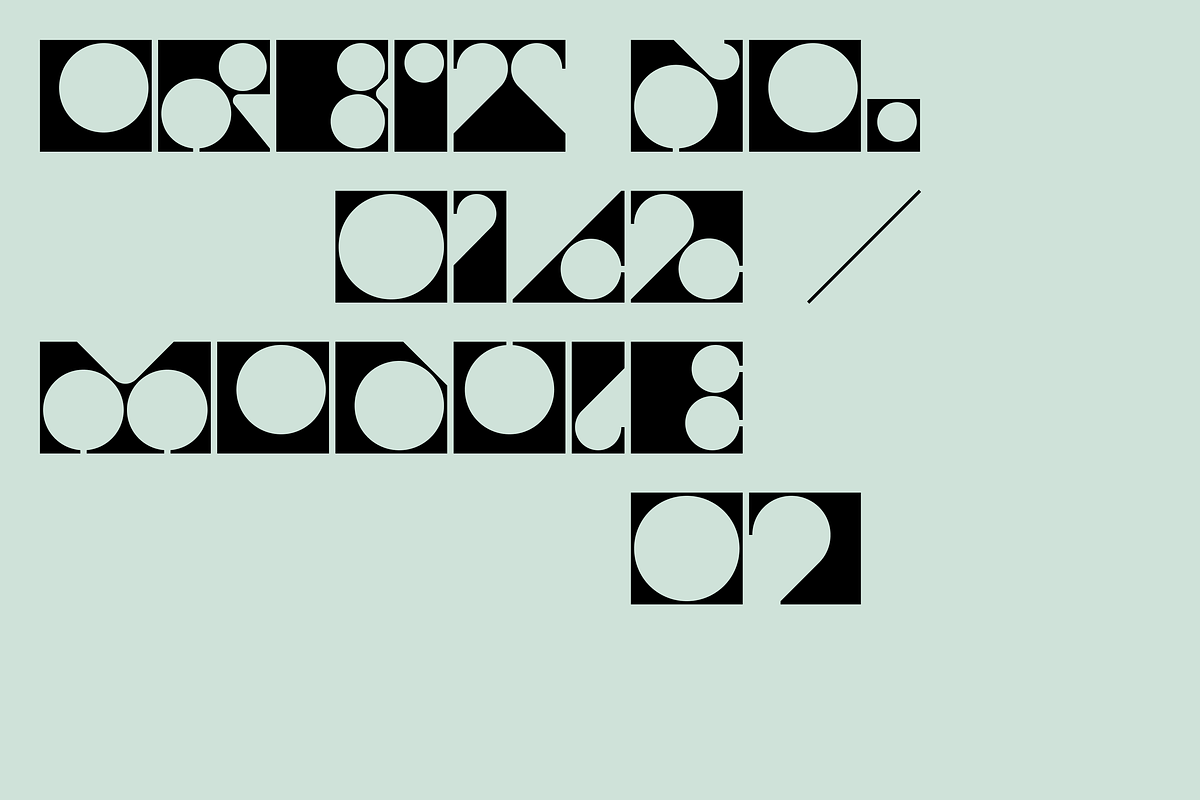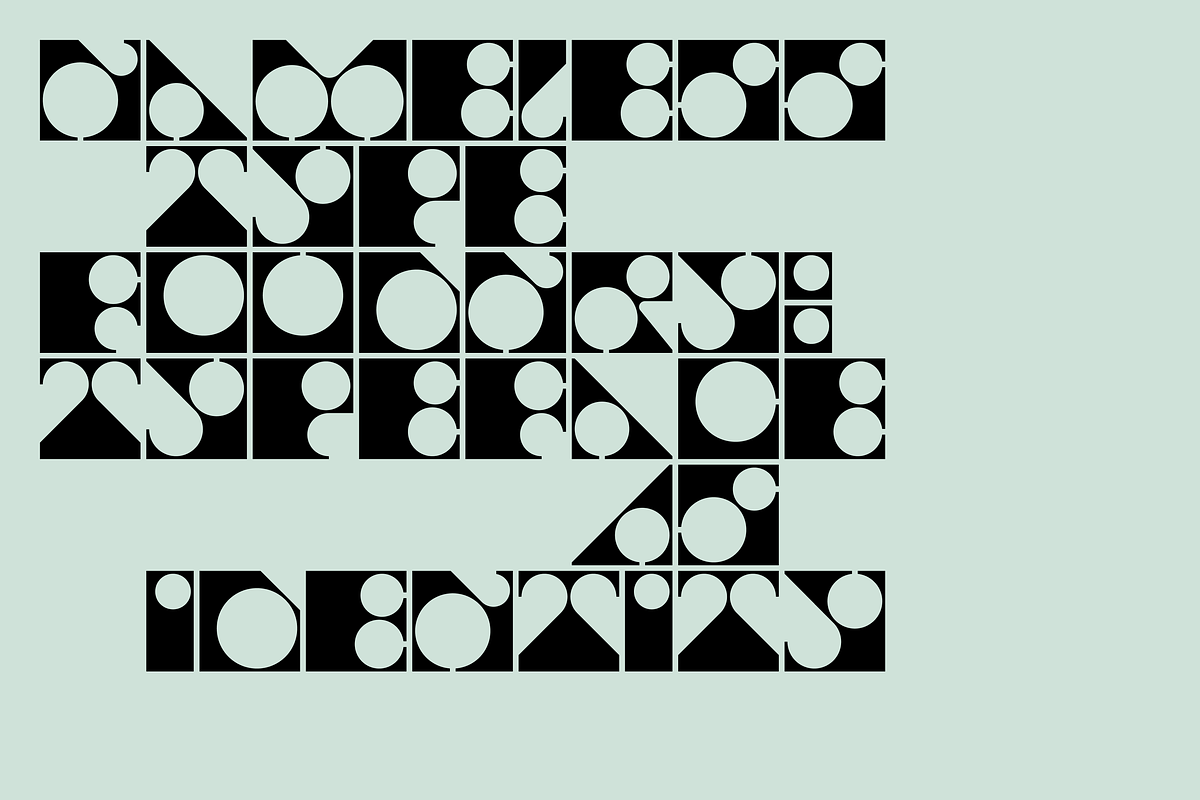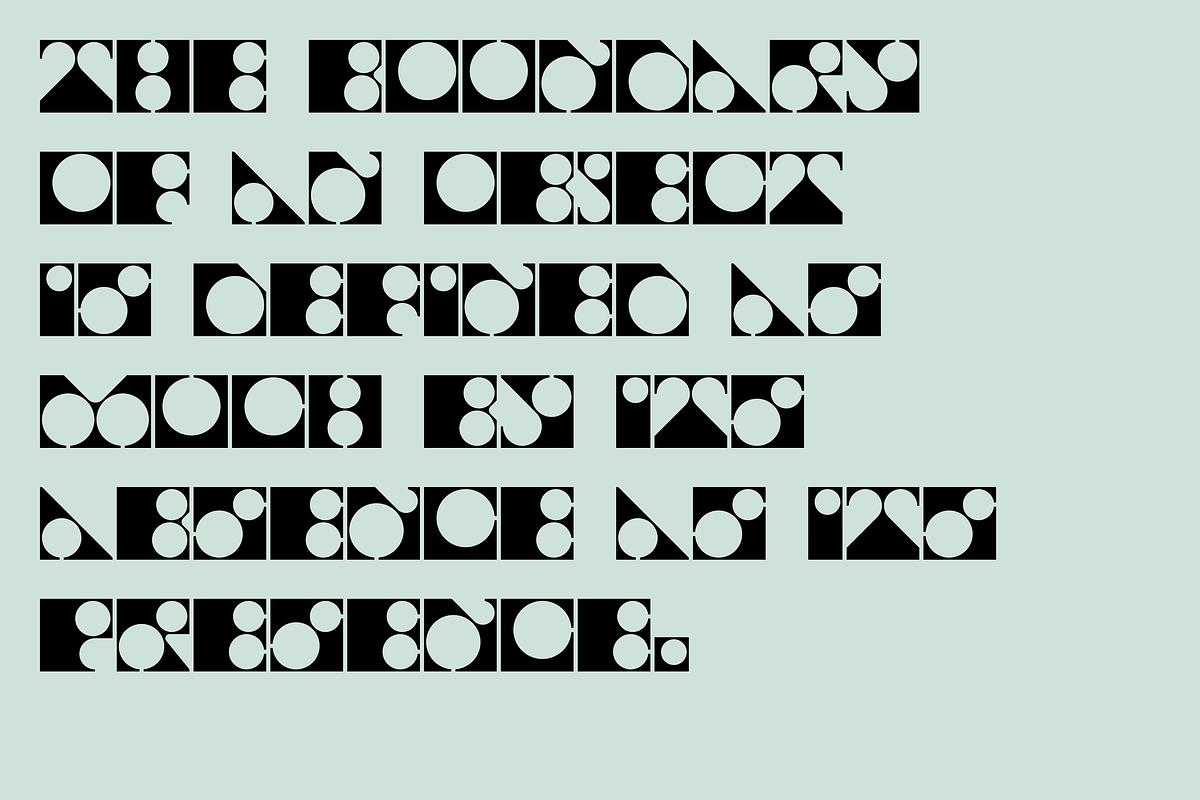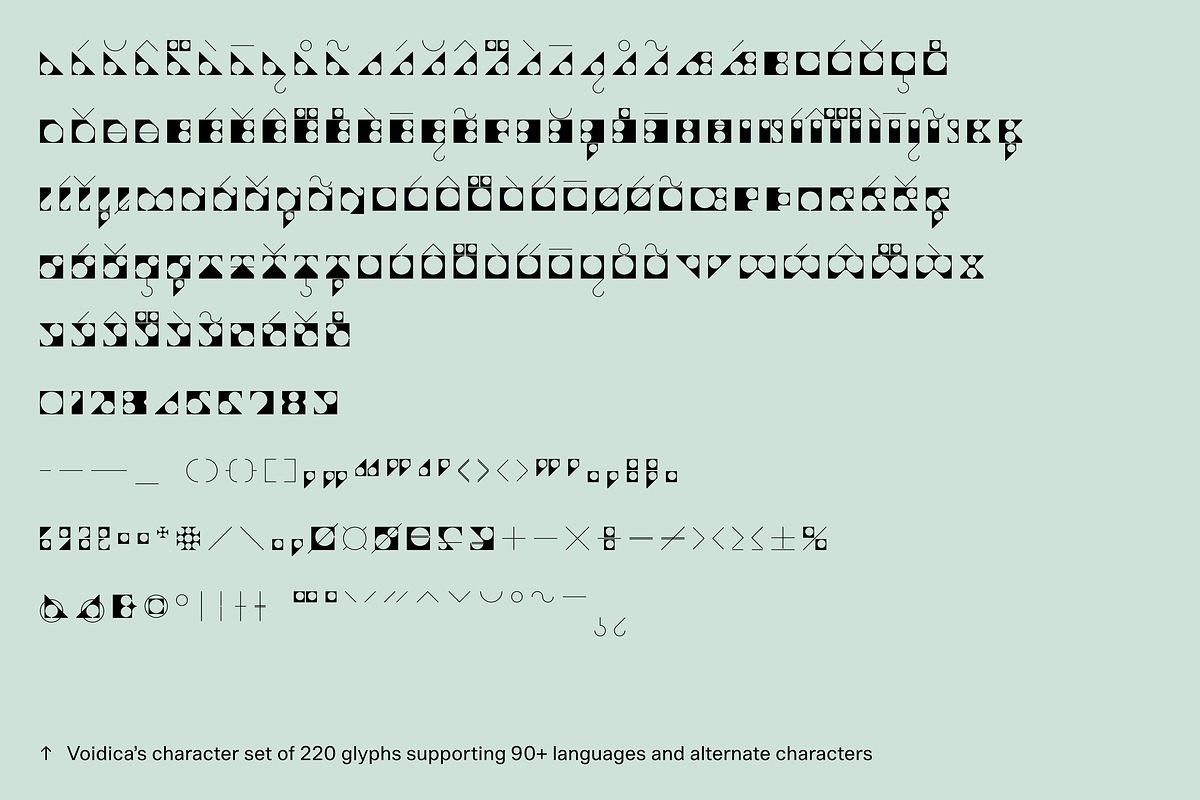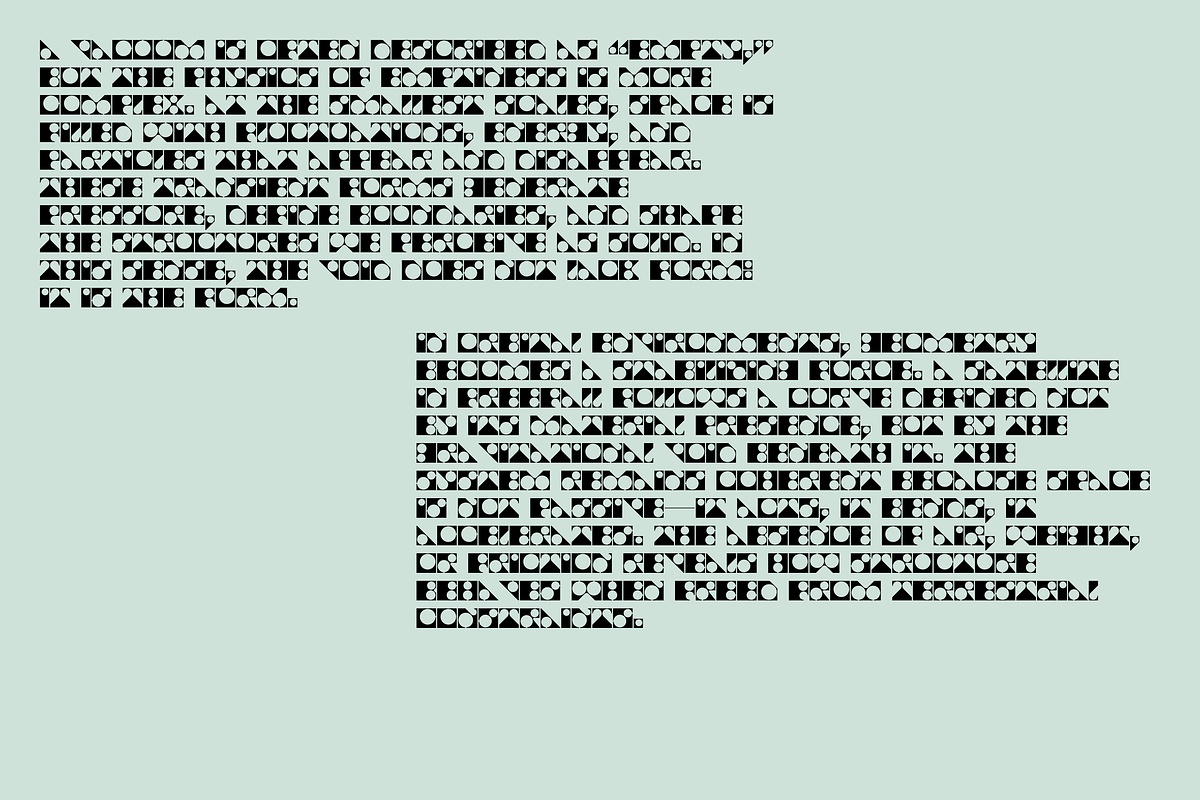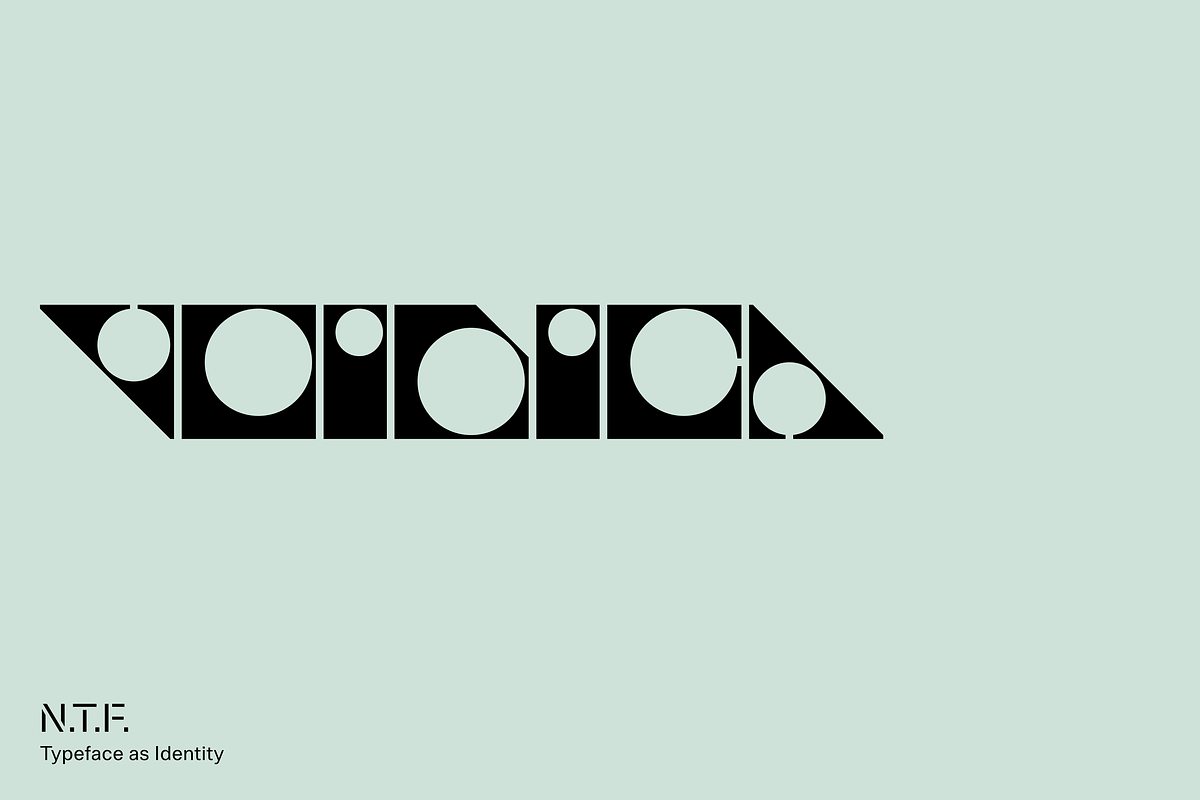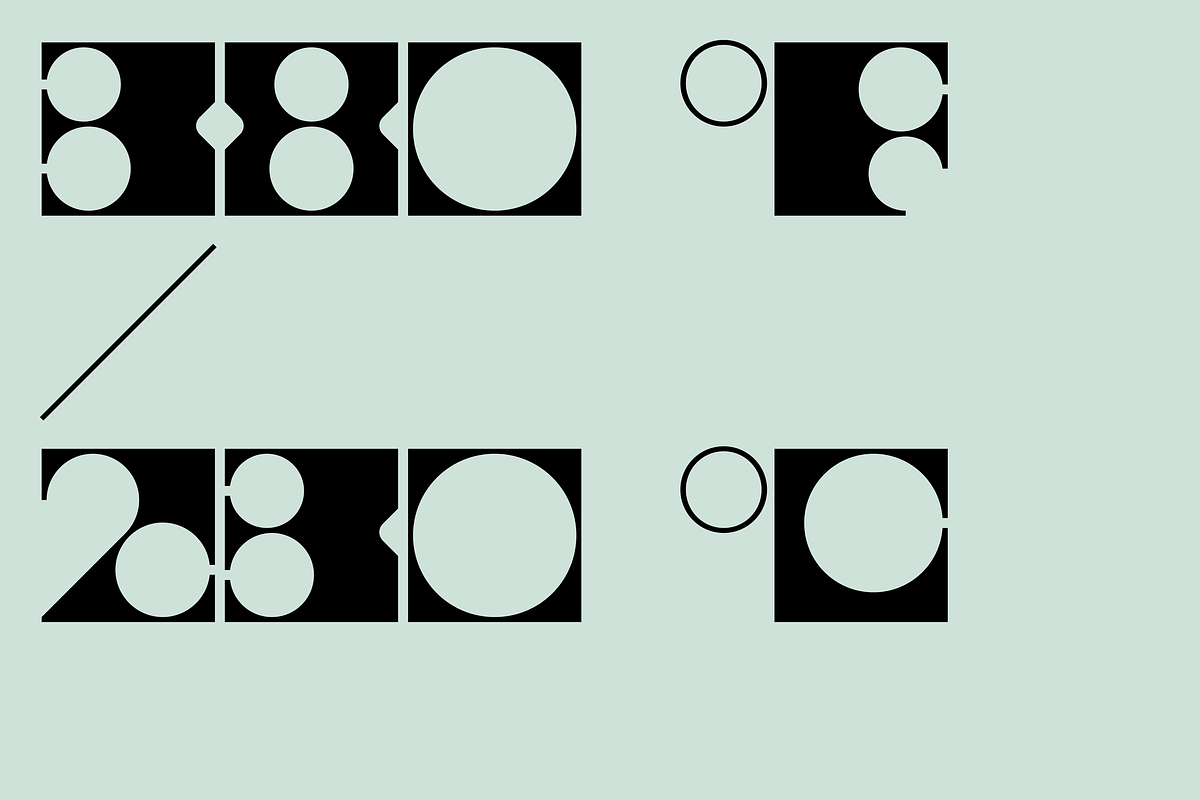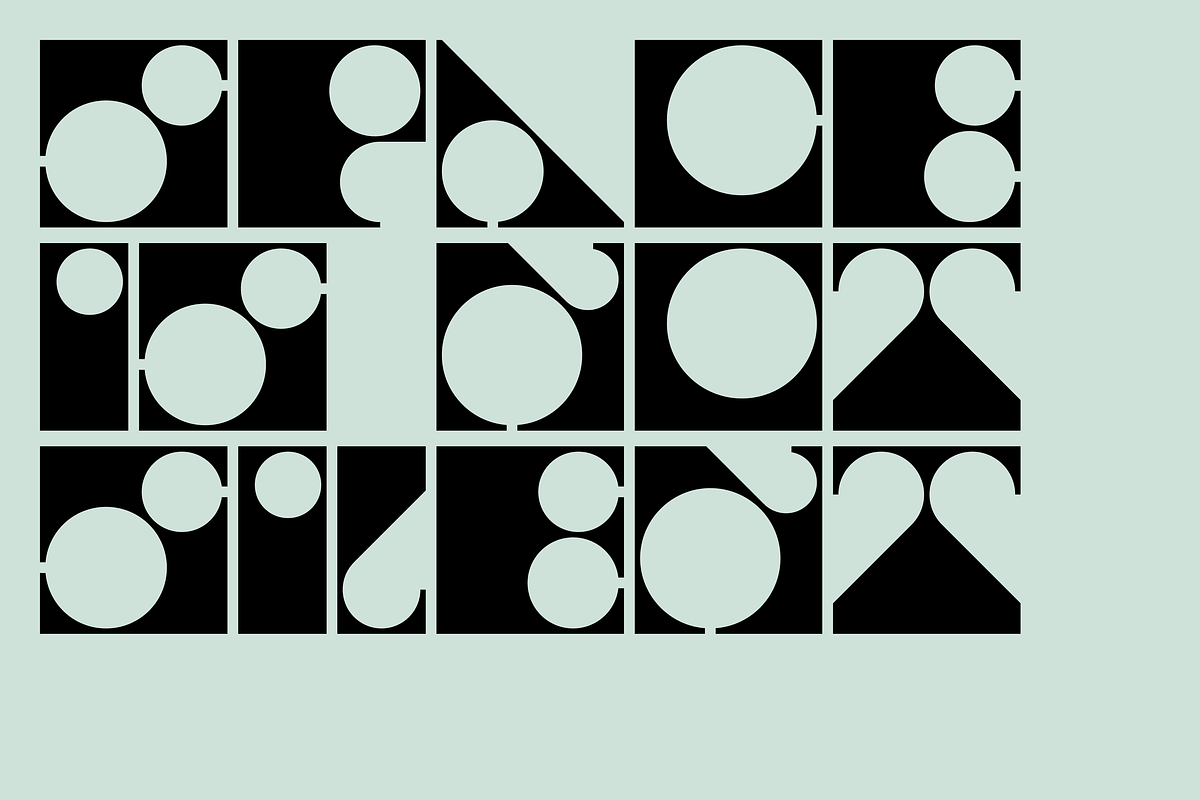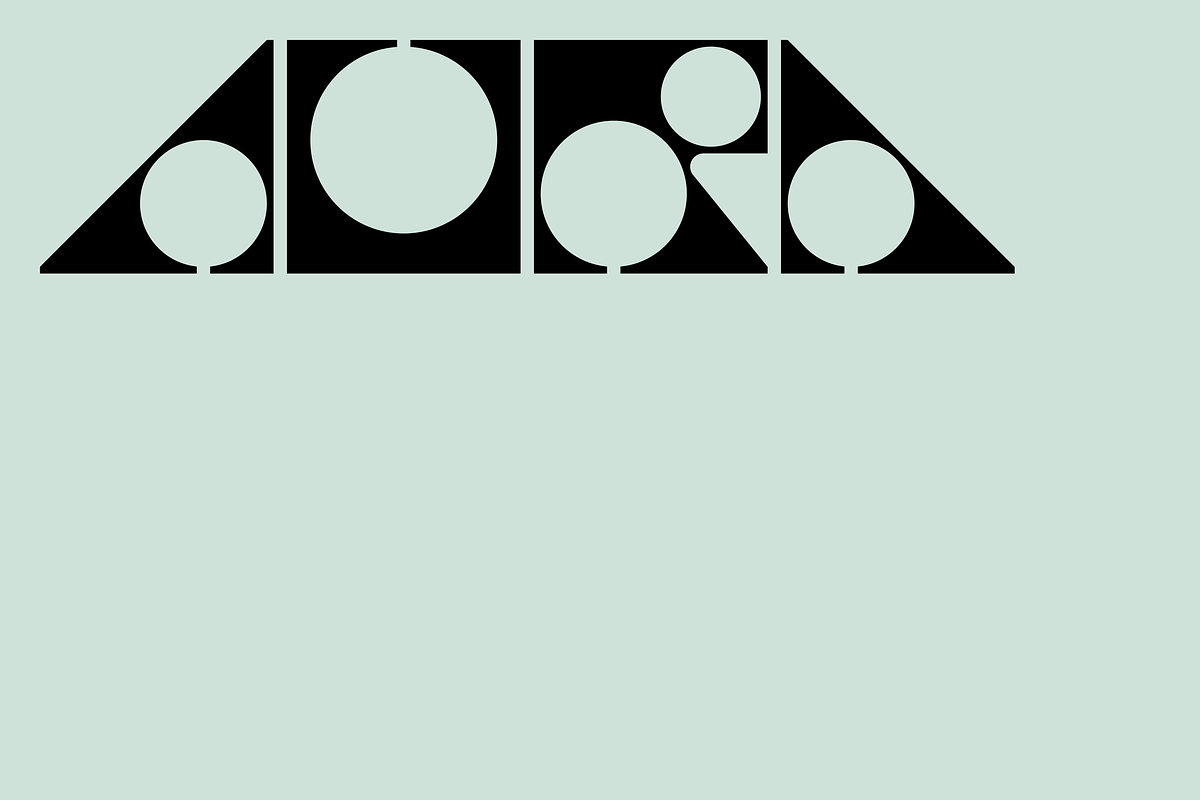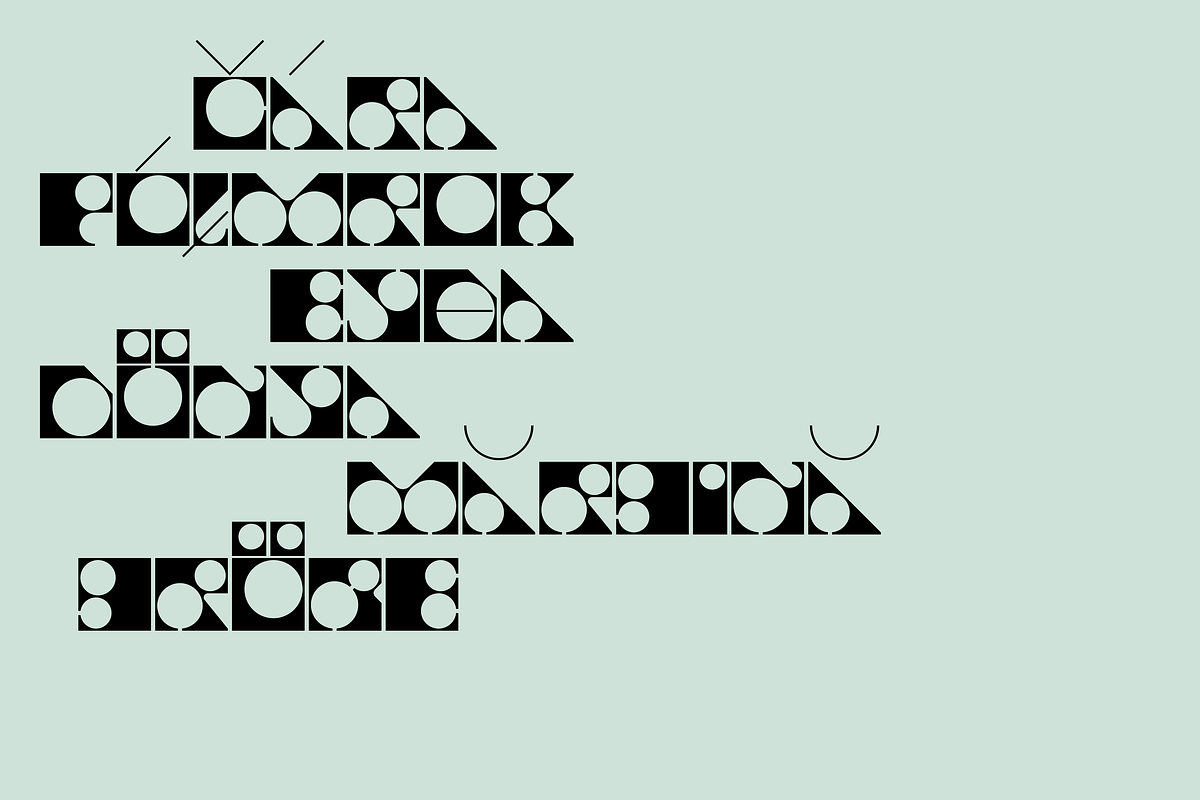
Voidica
Voidica is an experimental geometric display typeface constructed around the idea that absence can operate as form. Built from rigid rectangles interrupted by carefully engineered voids, it treats empty space as an active component of each letter. Each character behaves as a structural element within a larger typographic system. The result is a deliberate tension between solidity and vacancy, where positive and negative space are given equal authority.
The design draws on the visual logic of reduced geometry and conceptually inspired by vast emptiness of outer space. These influences, all grounded in precision and constraint, are distilled into a language of controlled openings and compressed forms. By treating negative space as a measurable unit rather than a byproduct, Voidica shifts the emphasis toward the shapes that are not there, creating an alphabet defined as much by voids as by strokes.
Released in a single weight, Voidica includes broad language support and a set of OpenType alternate forms that further extend its modular vocabulary. It is intended for bold and expressive display contexts where abstraction is welcome and where typography is asked to carry both communicative and spatial roles. In these settings, Voidica performs not only as a typeface but as a system of geometric parts that generate structure through the selective removal of form.